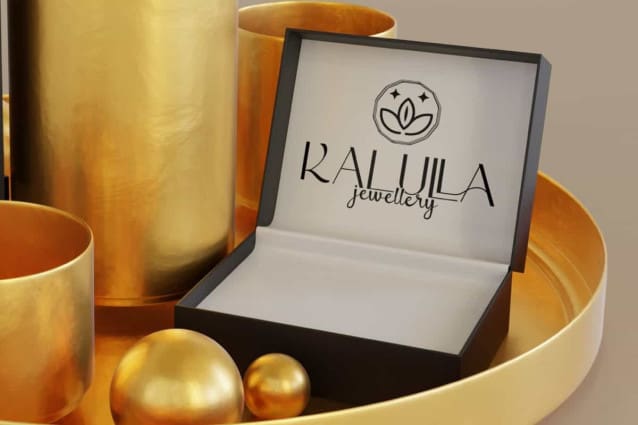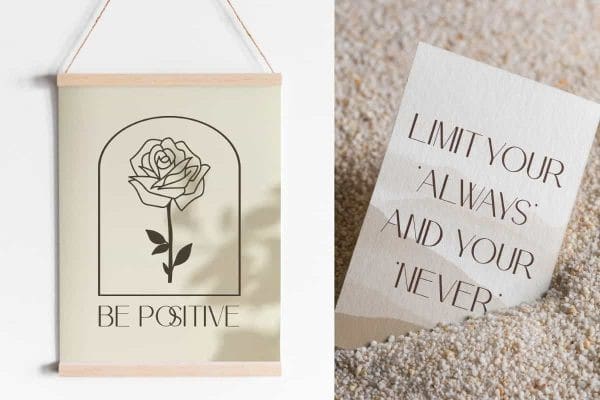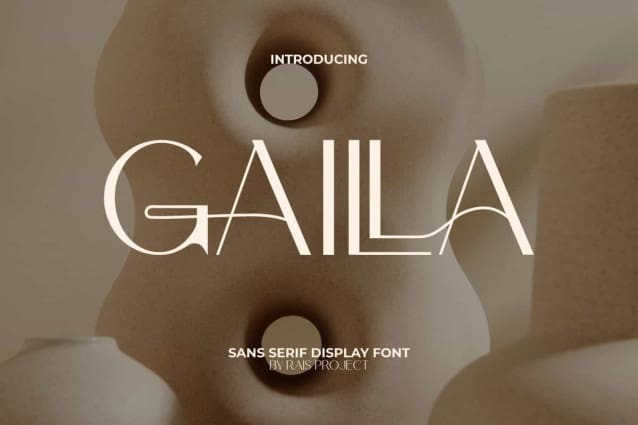
Gailla Font
Gailla Font is a stunning splendid sans serif display font. The characters in this font have a luxurious minimalist style and can provide an attractive appearance when using Ligature characters. It will be good for any designs, such as brand image, custom design, flyer, invitation, label, magazine cover, marketing material, menu, poster, product packaging, quotes, signage, stationery, website page, and more!
Gailla Font including a complete set of basic Uppercase and Lowercase characters, Numerals, and large range of Punctuation. This font also include Ligature characters that will be suitable for various industries, such as accessories, advertising, beauty product, café, crafting, event or wedding organizer, fashion, home furniture, jewelry, marketing, movie, printing, publishing, real estate, restaurant, spa salon, etc.